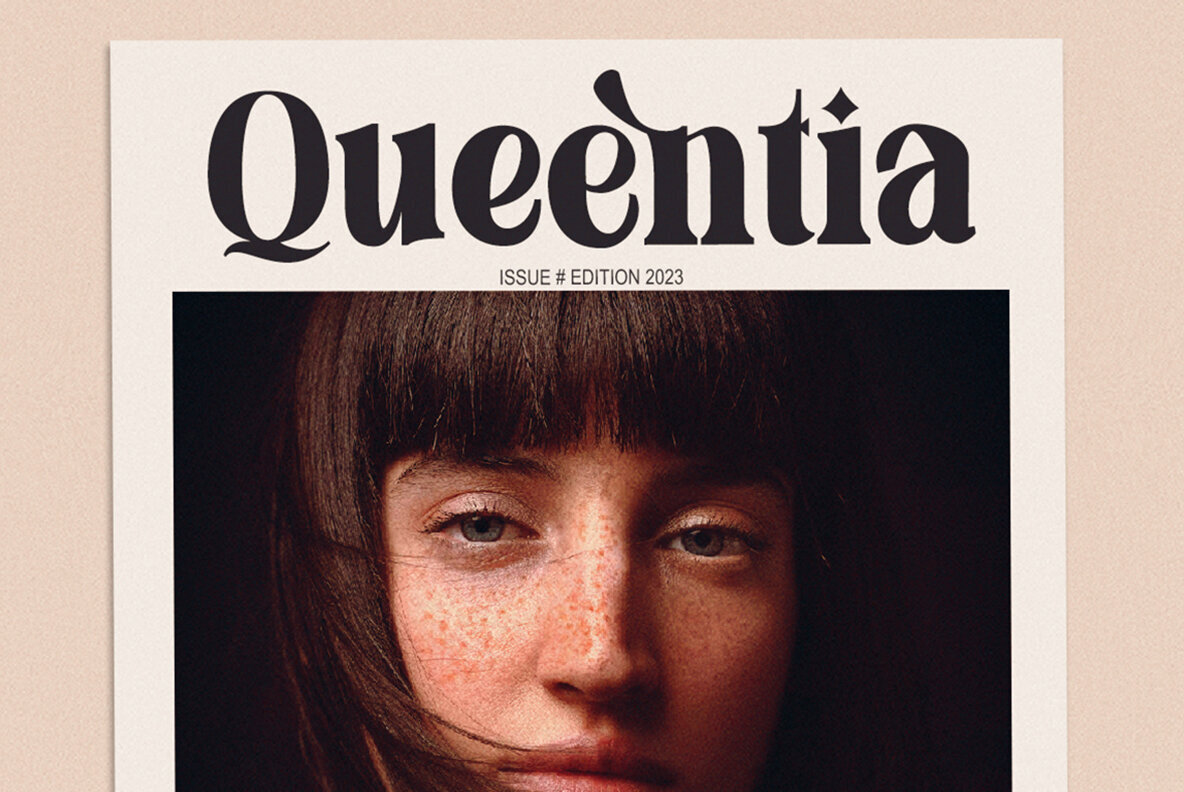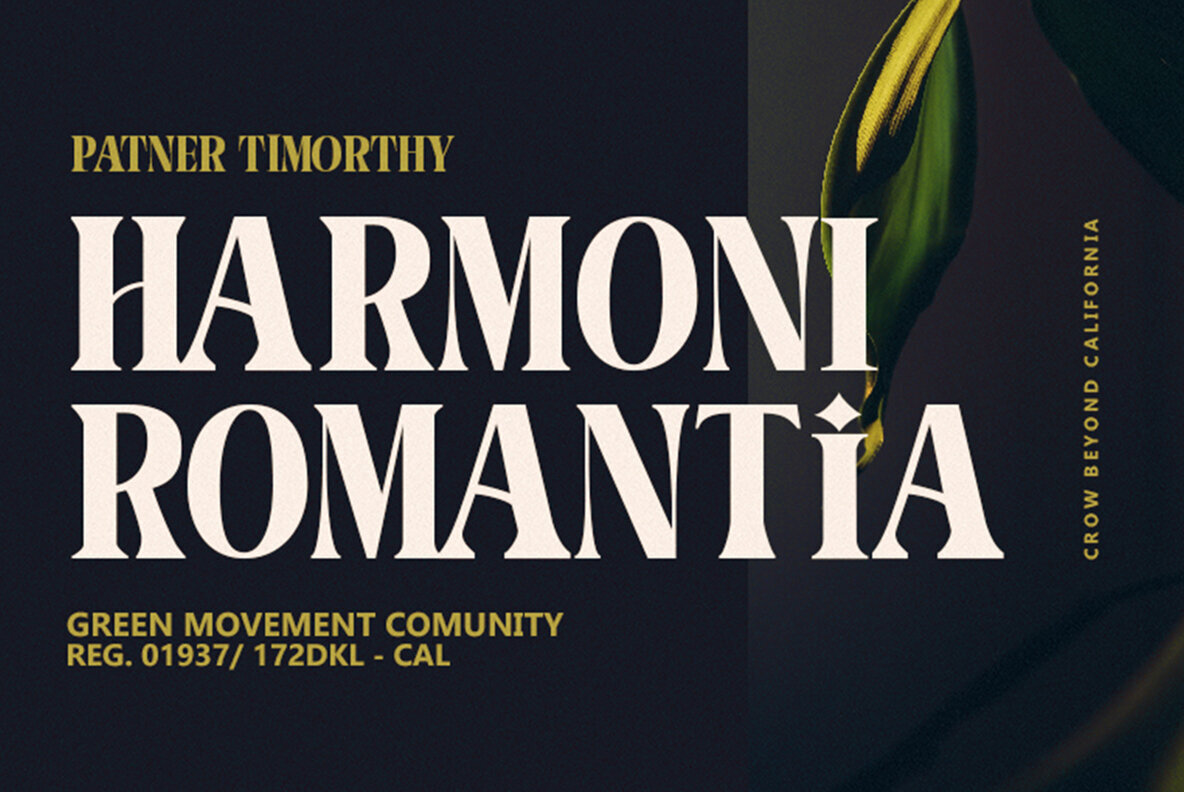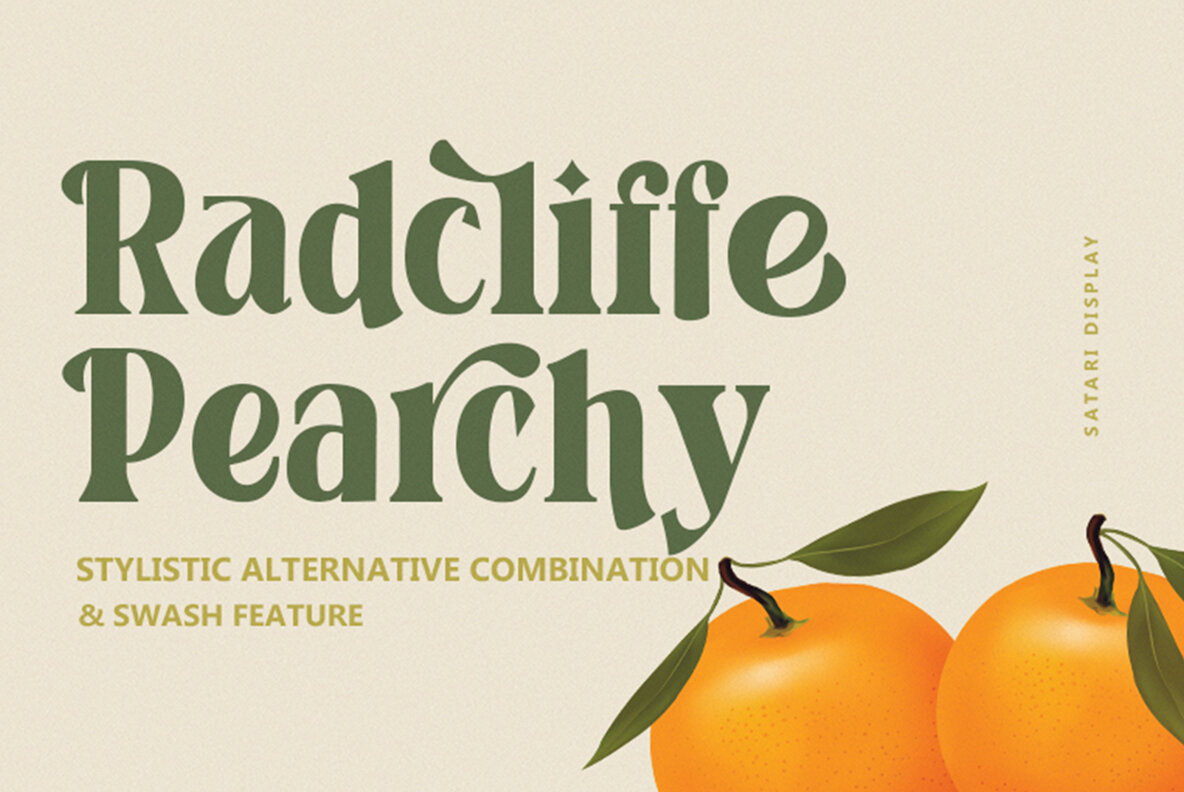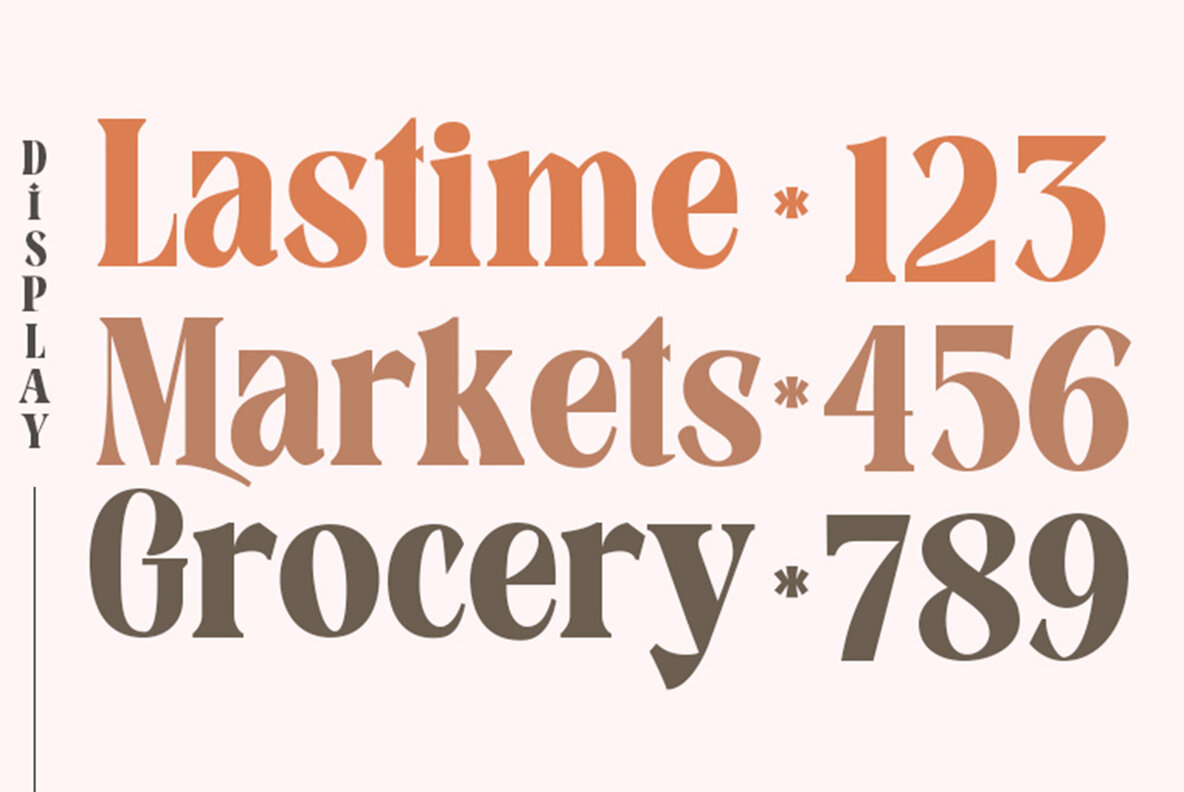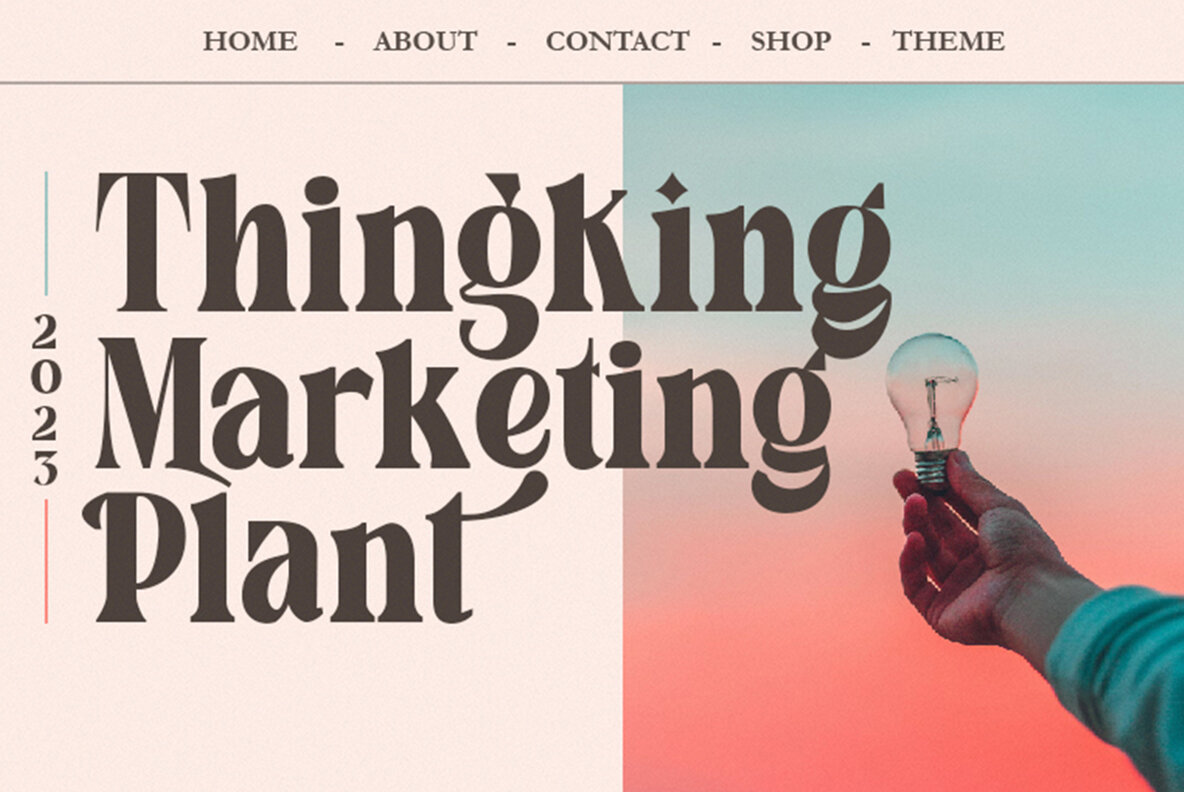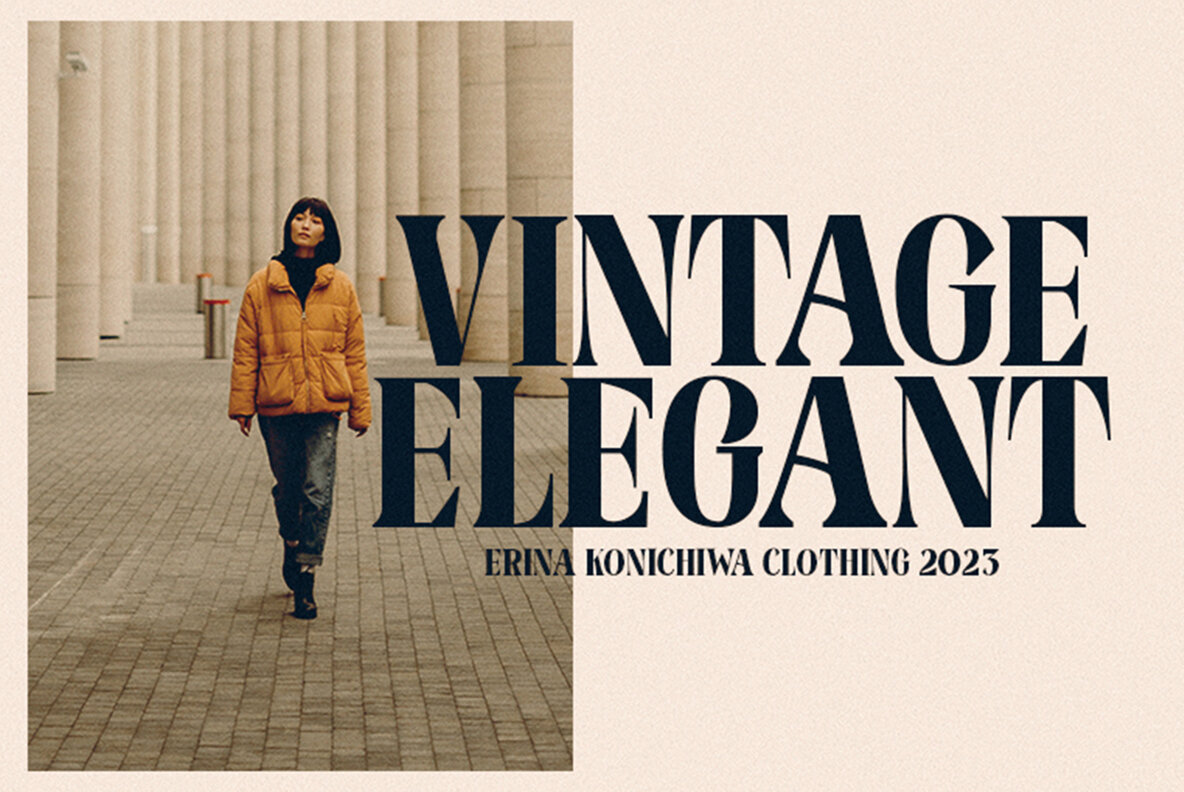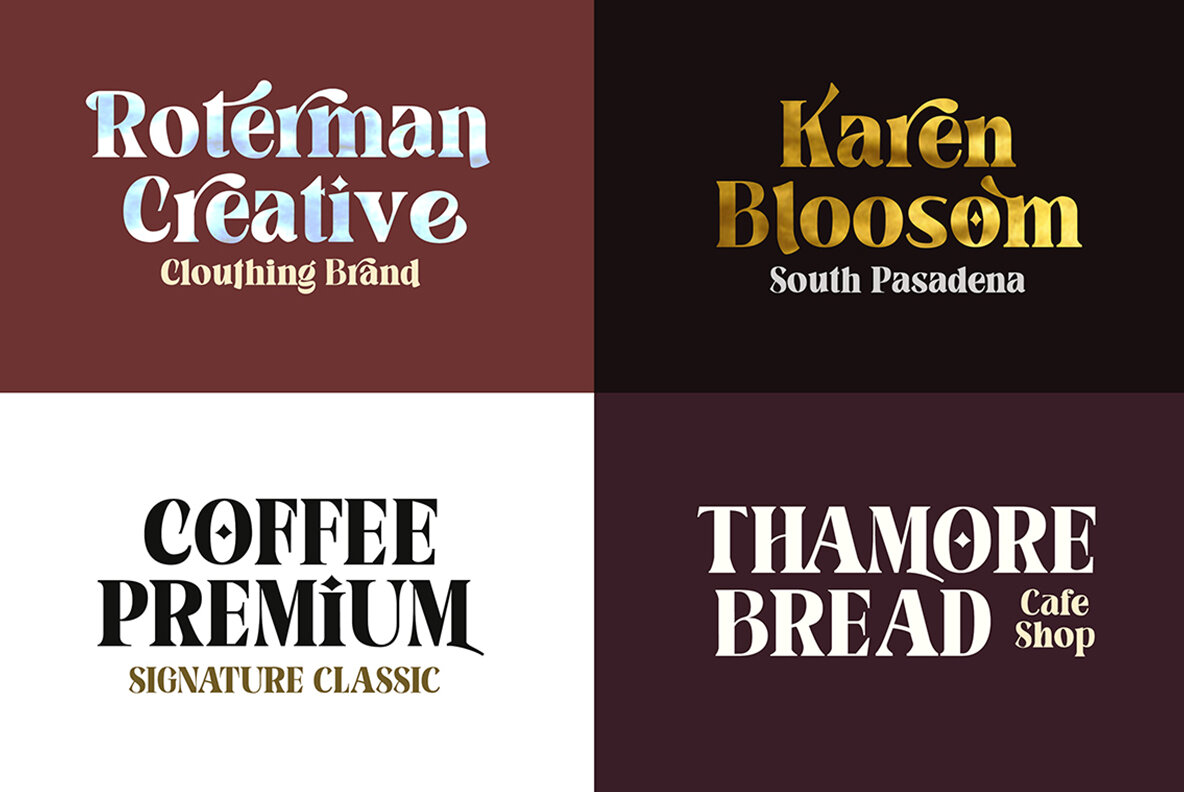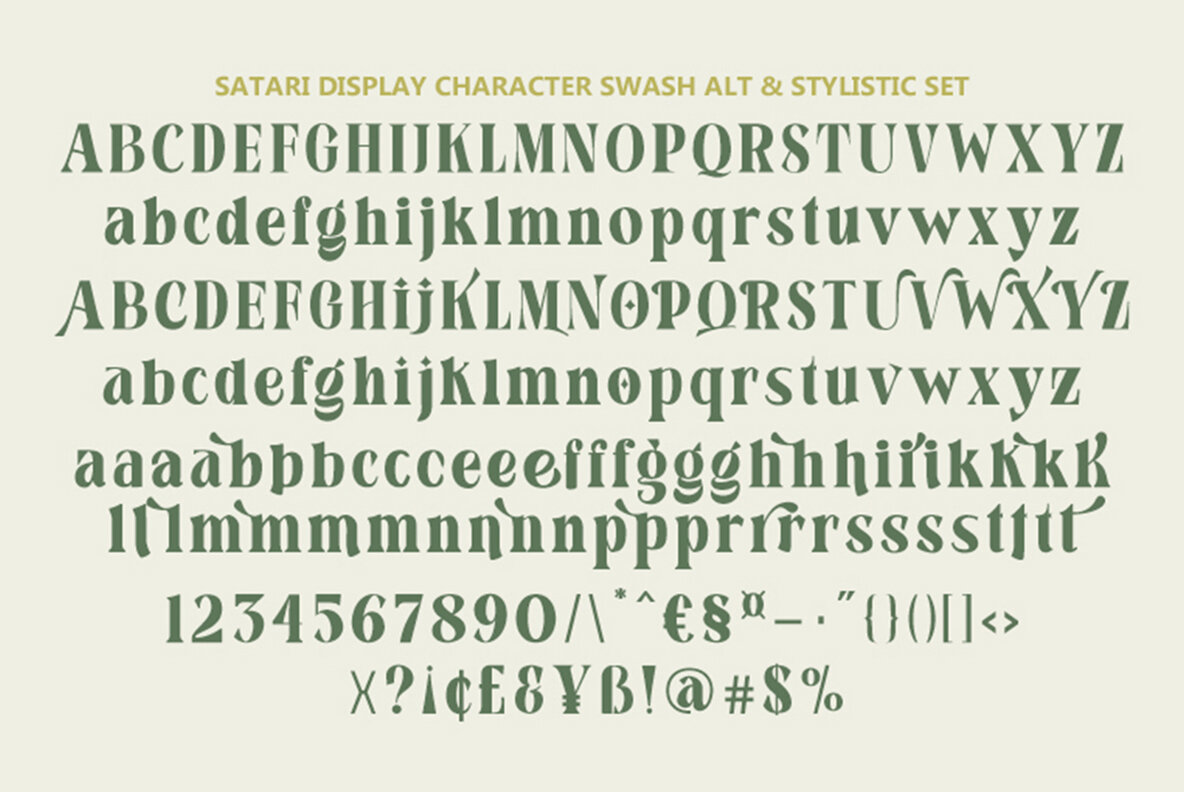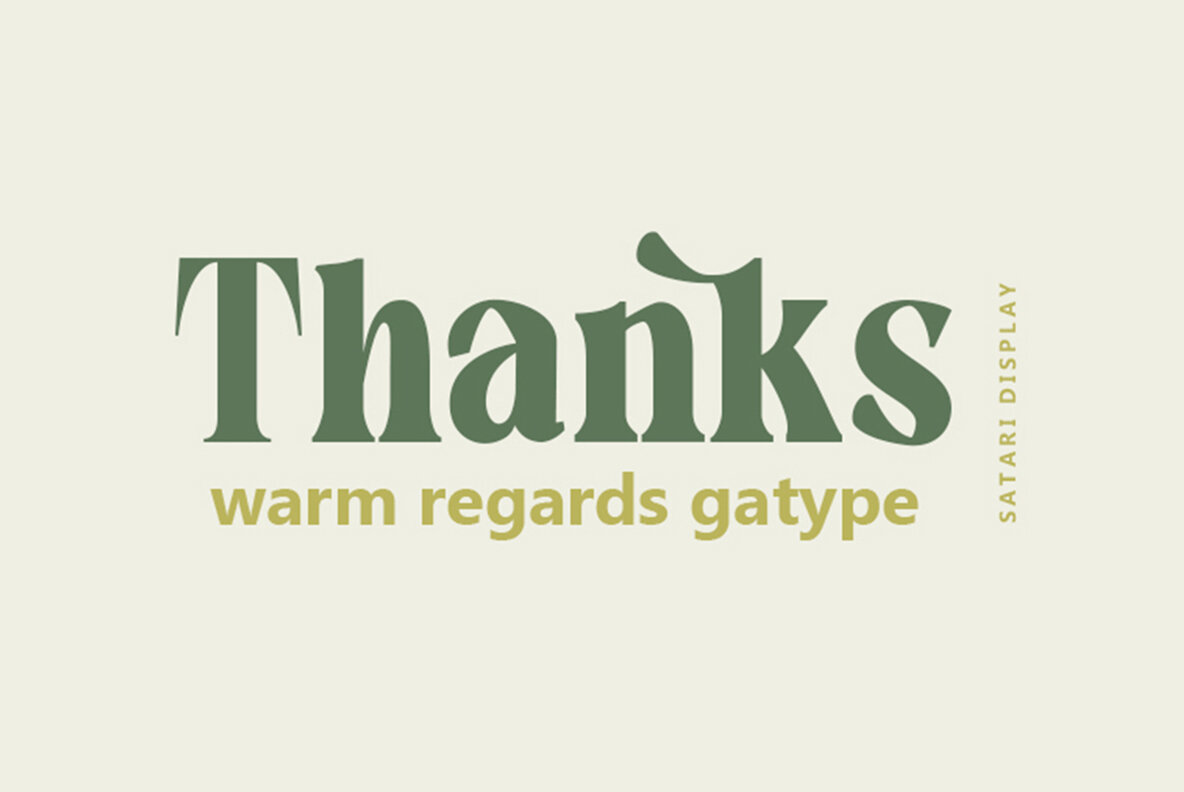
Satari Font
Satari Display
Satari Display is a striking, bold font designed for versatility across various applications and sizes. Its design supports multilingual characters, making it an ideal choice for international projects. Whether you're working on branding projects, logos, wedding designs, social media posts, advertisements, product packaging, product design, labels, photography, watermarks, or invitations, Satari Display fits seamlessly into any creative endeavor.Satari Display Font: Bold Elegance for Every Design